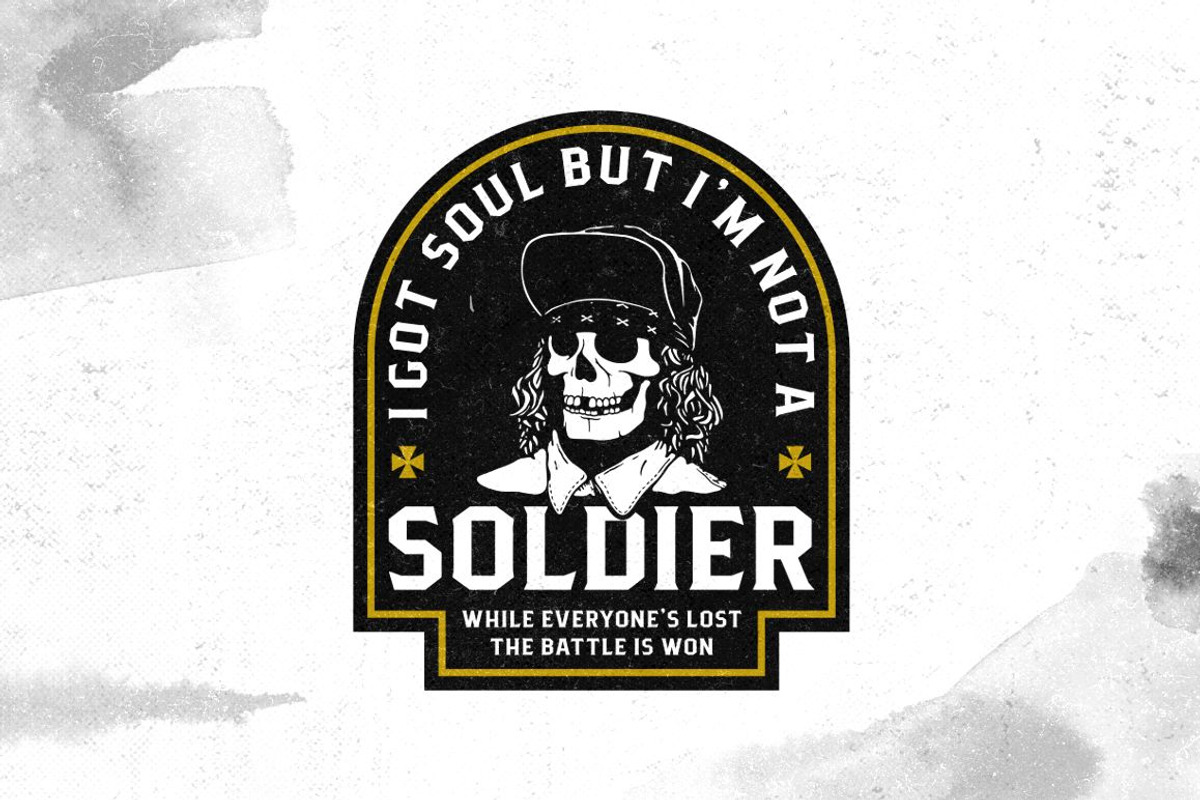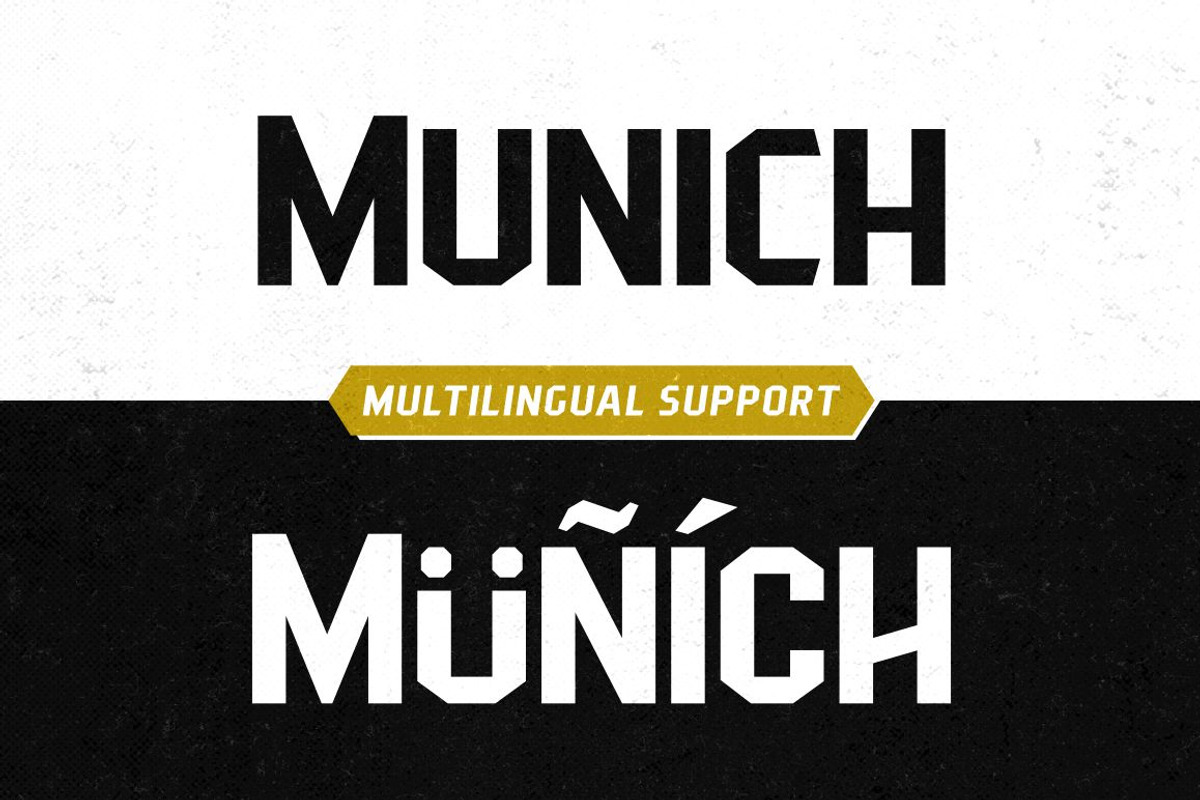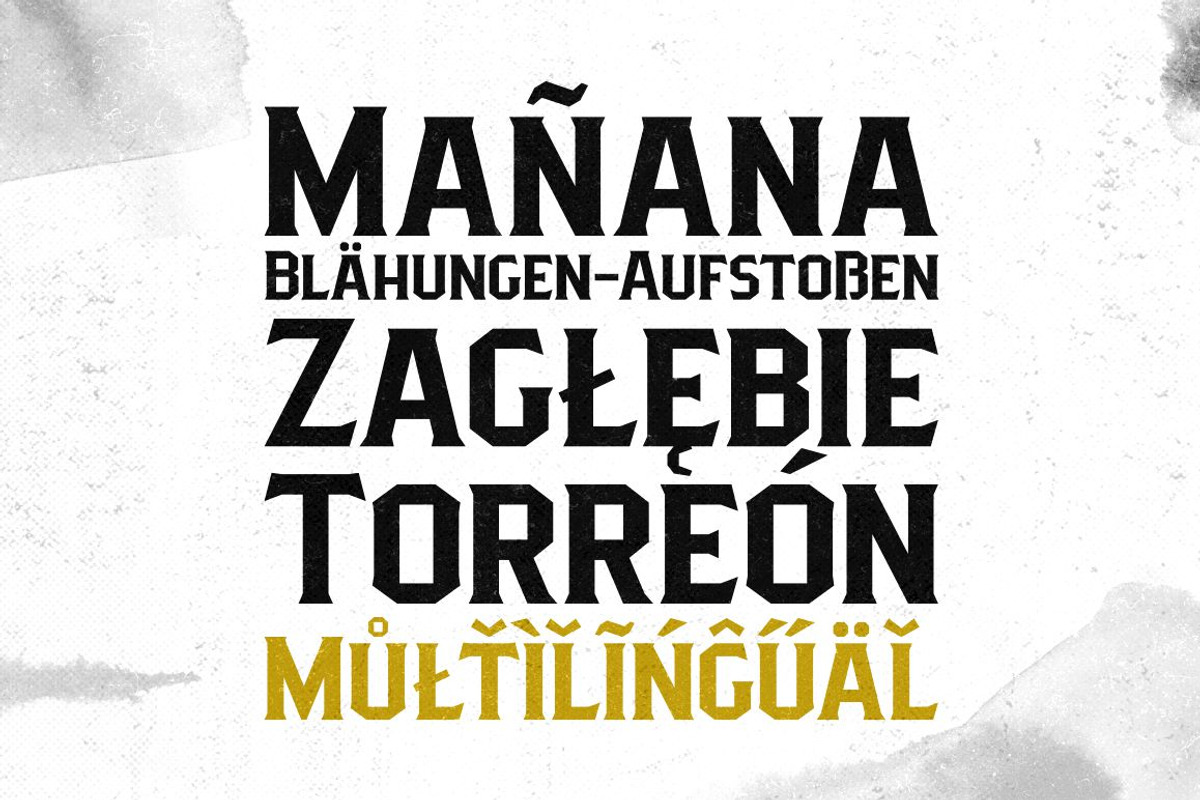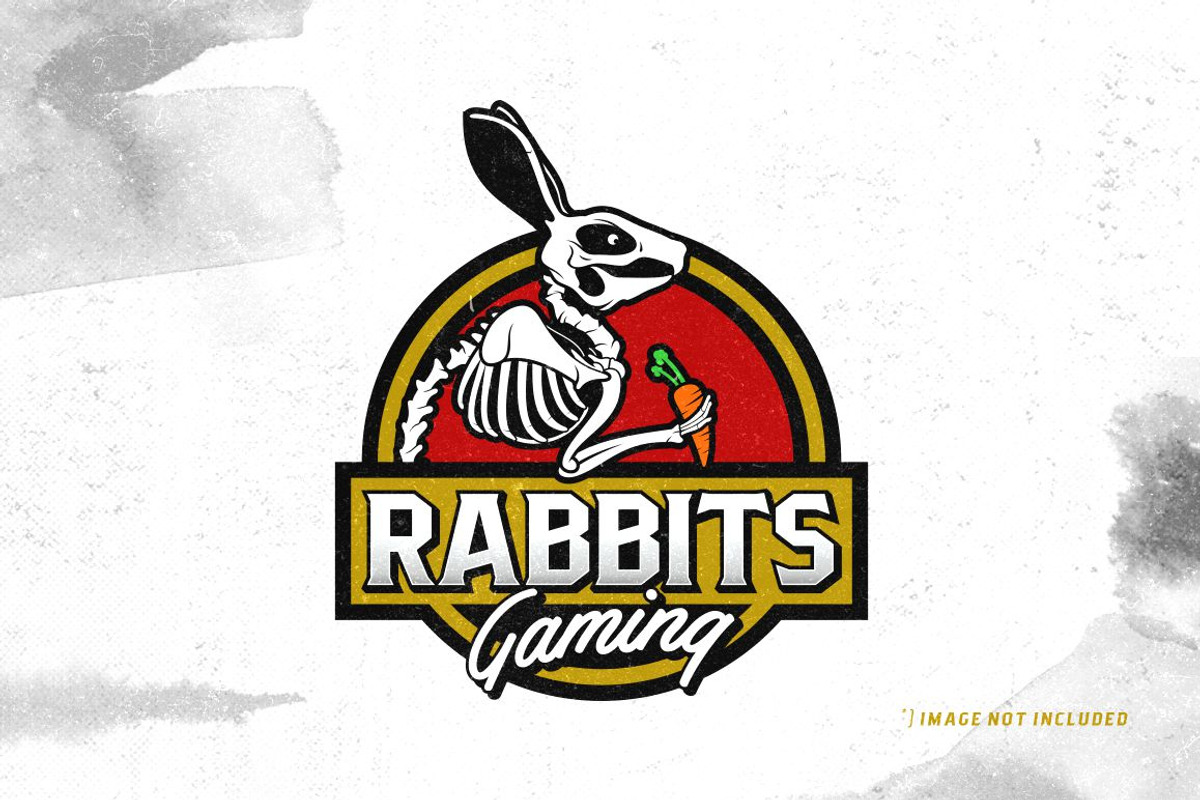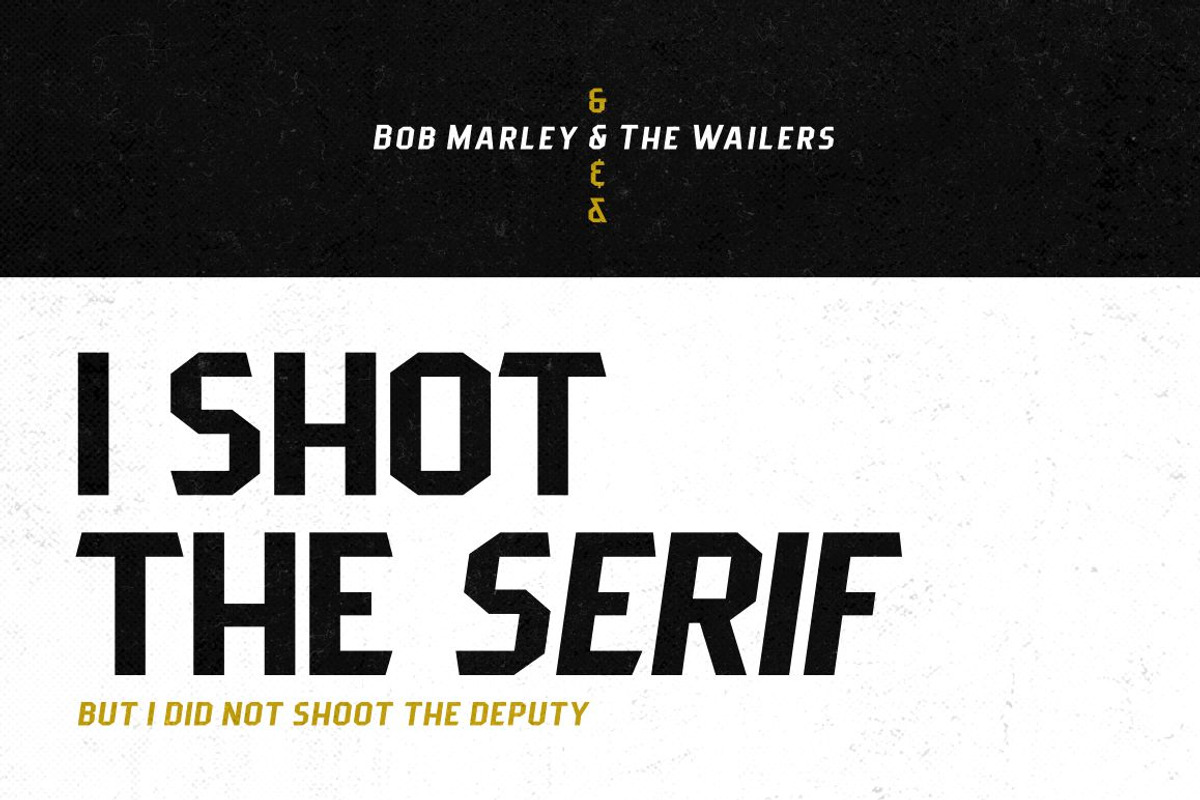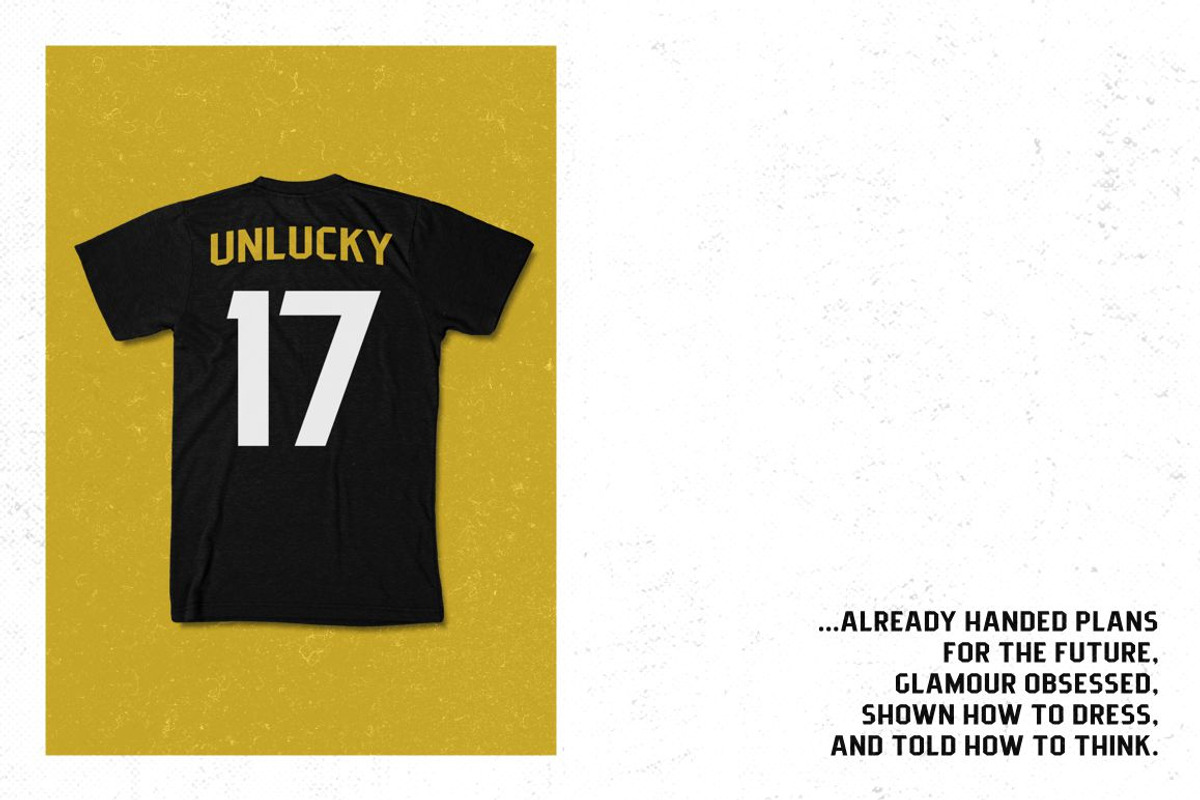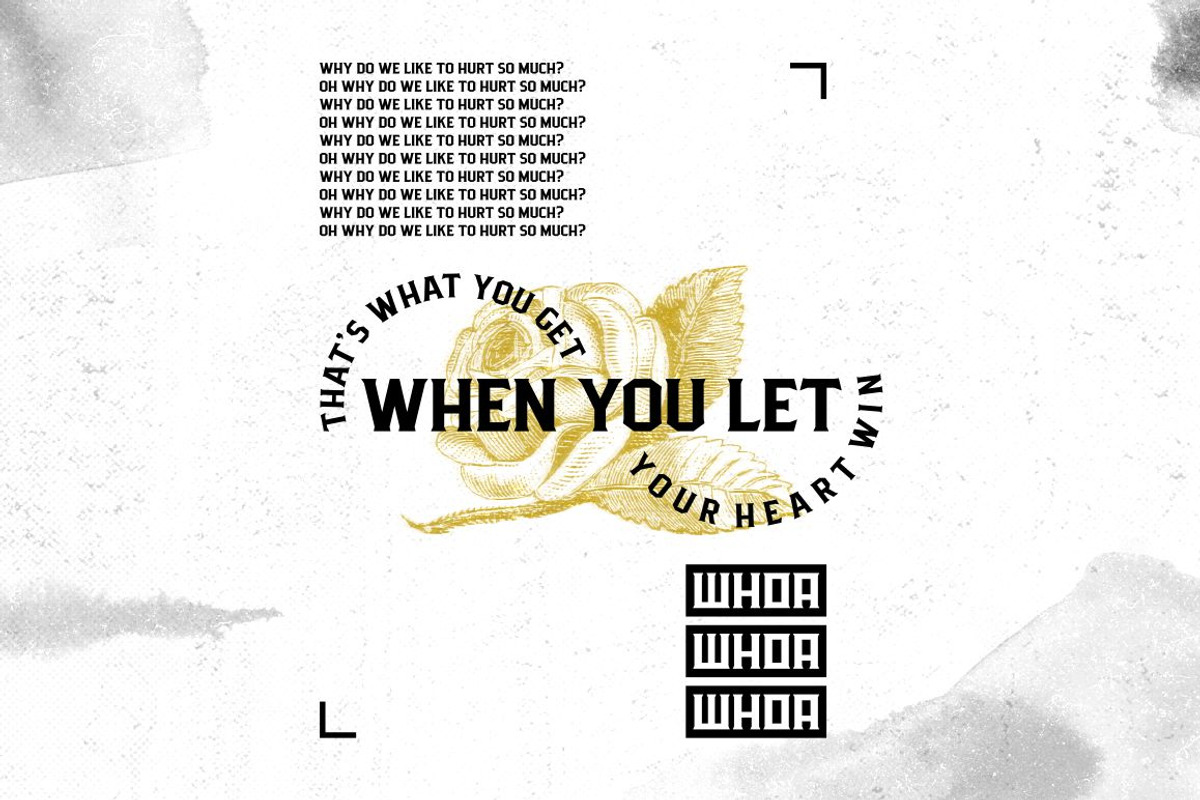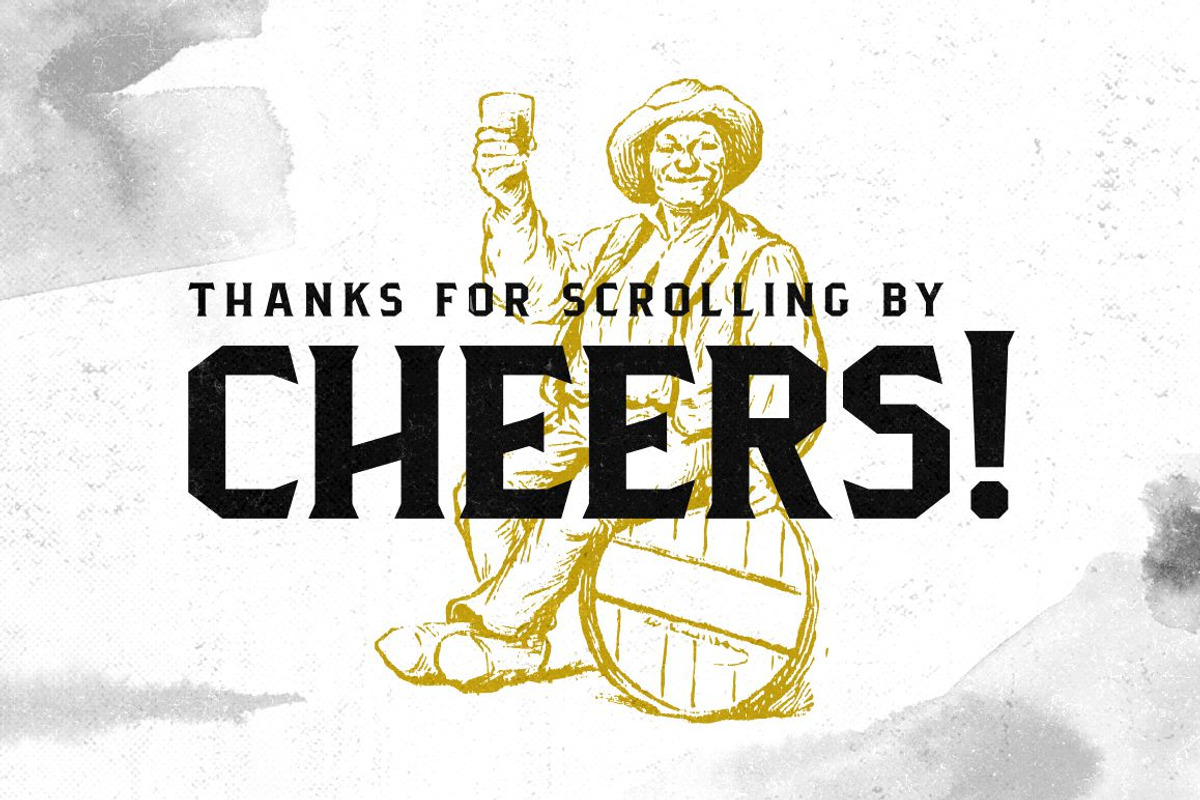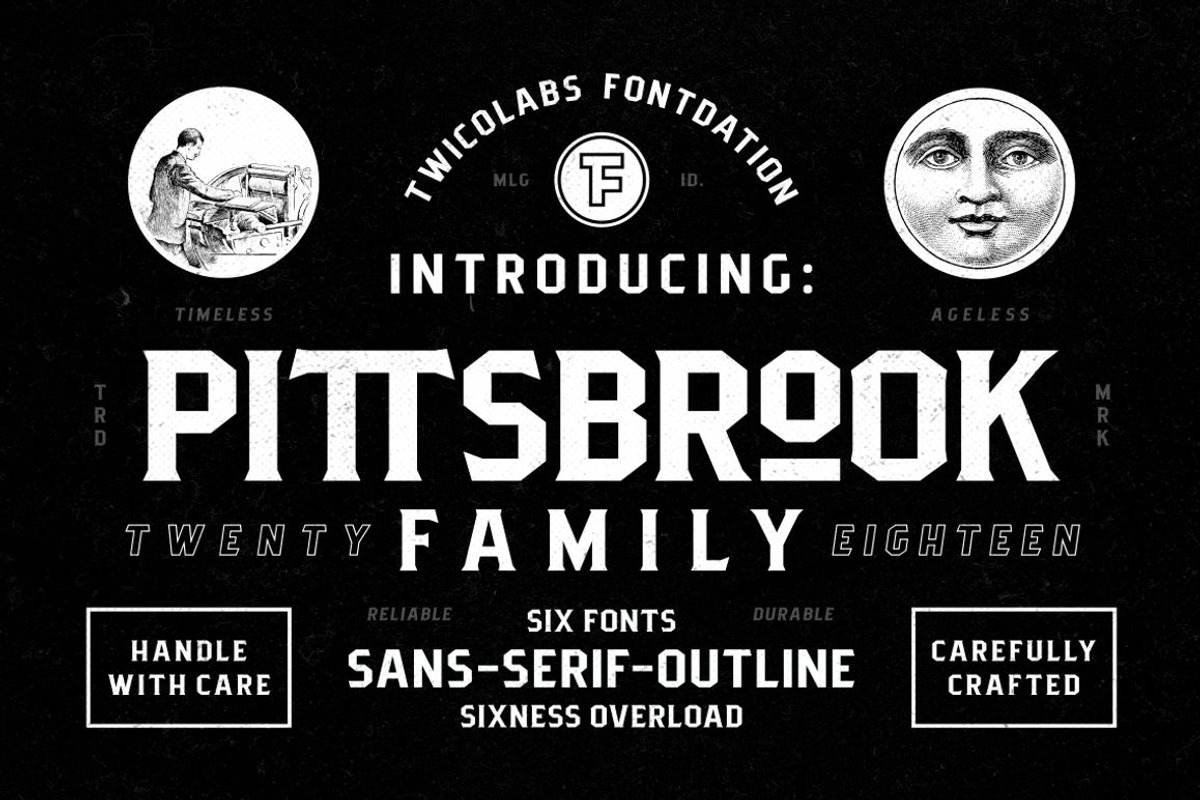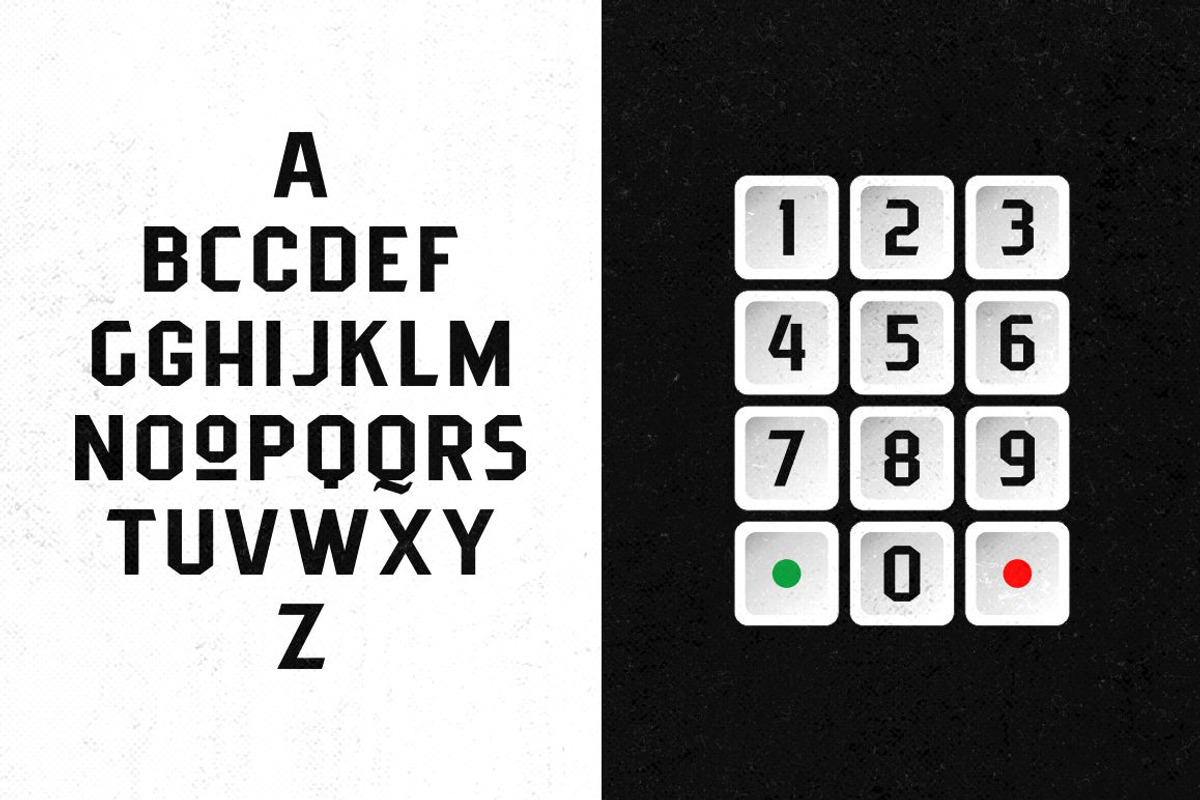
Pittsbrook Family, a pack of classic typefaces that inspired by the letters used in old advertisement and packagings. Its rigid shape gives you strong, sharp and blocky feelings, no curves were harmed in the making of these typefaces.
Comes in three styles; Sans, Serif and Outline, all of them are consistently mouse-crafted characters, we spent a lot of attention to every details. Suits best for any classic/vintage design project, such as E-Sport logo, liquor/food label, packaging, headline, space-filler, logotype, typographic quote writings, etc.
- Standard upper and lowercase characters,
- Numeral and punctuations (OpenType Standard encoding),
- Multilingual character supports (Afrikaans, Albanian, Catalan, Croatian, Czech, Danish, Dutch, English, Estonian, Finnish, French, German, Hungarian, Icelandic, Italian, Lithuanian, Maltese, Norwegian, Polish, Portuguese, Slovenian, Spanish, Swedish, Turkish, Zulu),
- OpenType features such as alternate characters, stylistic sets, ligatures, etc,
- PUA (Private Use Area) Encoded Characters (you can access the OpenType features without additional design software),
- Three styles: Sans, Serif and Outline (all in regular and slanted/italic),